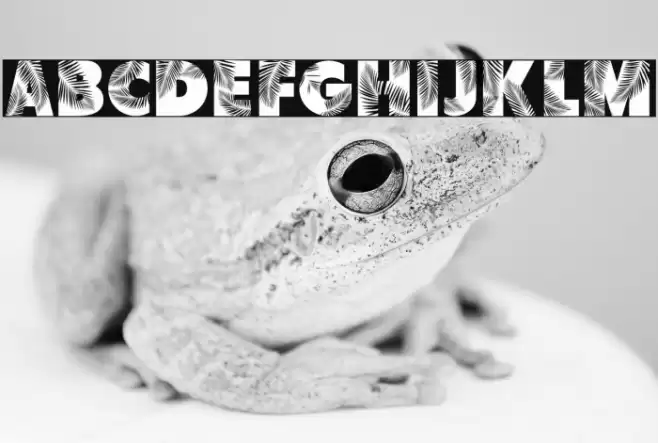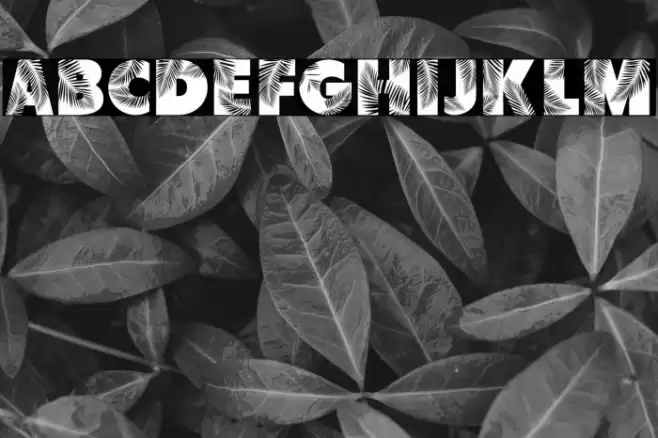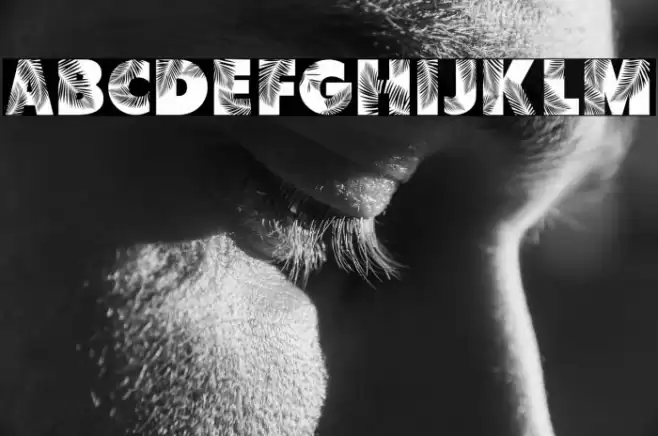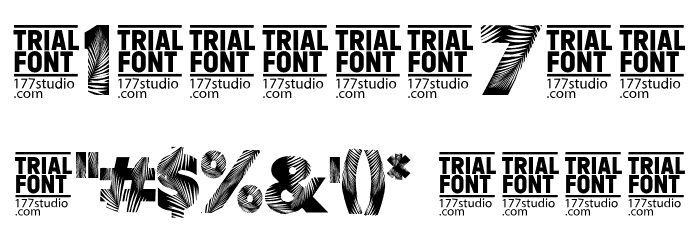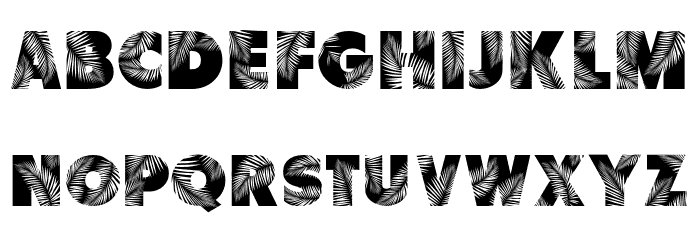
Palm Leaf Demo Regular Font
Palm Leaf Demo Regular Description
This font features a bold and decorative style with intricate palm leaf patterns embedded within each character. The design is highly detailed, creating a textured appearance that evokes a tropical or natural theme. The uppercase letters are prominent and eye-catching, making them suitable for display purposes. The characters are uniformly wide, with consistent spacing that maintains readability despite the complex internal design. The font's unique aesthetic makes it ideal for projects that require a distinctive and thematic look.
A bold, decorative font with intricate palm leaf patterns in each character from Uncategorized fonts.
- Font: Palm Leaf Demo Regular
- Proposed Projects: Ideal for tropical-themed posters, event invitations, branding for eco-friendly products, or any project needing a unique, nature-inspired aesthetic.
- Contrast: High
- Overall Style: Decorative
- Use Case: Headlines, Logos